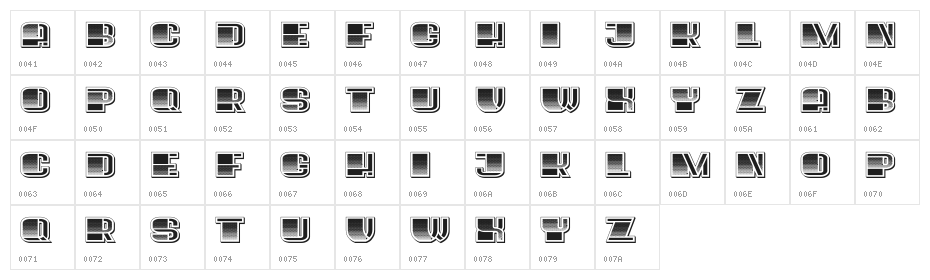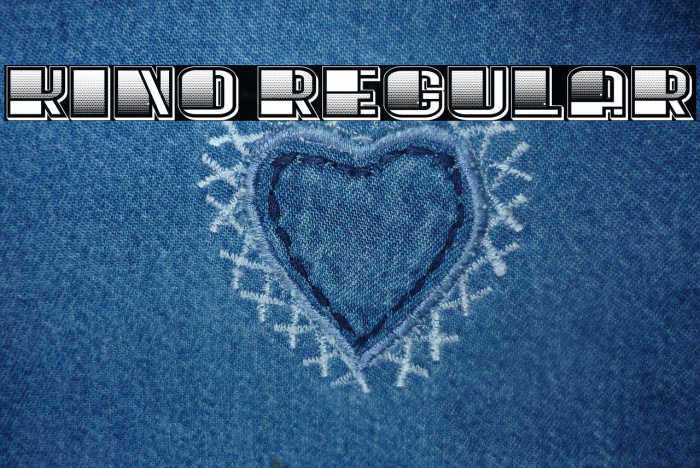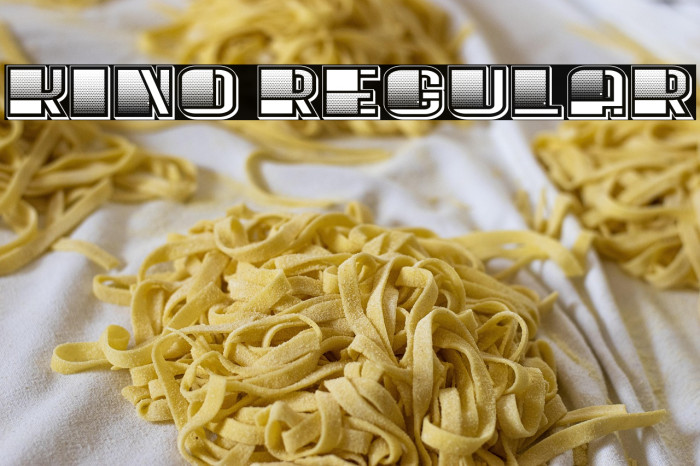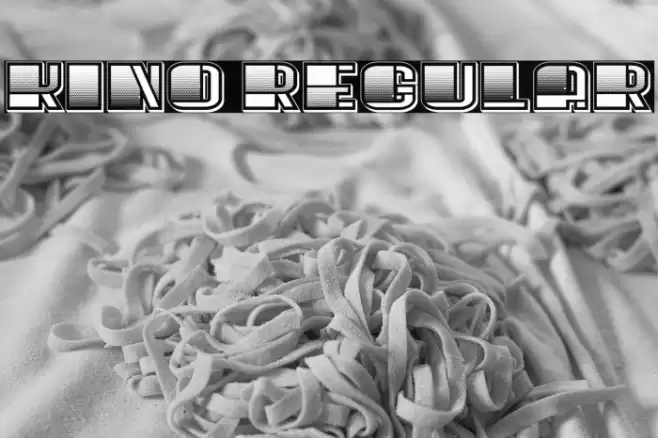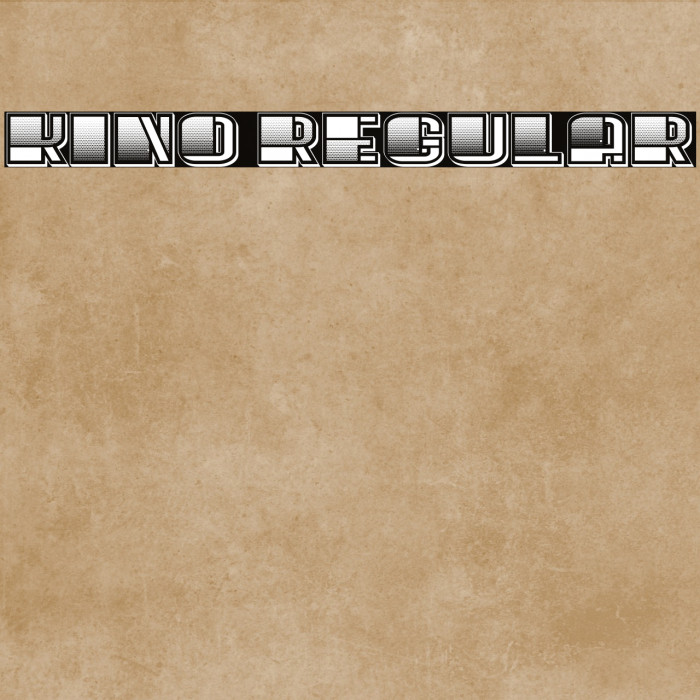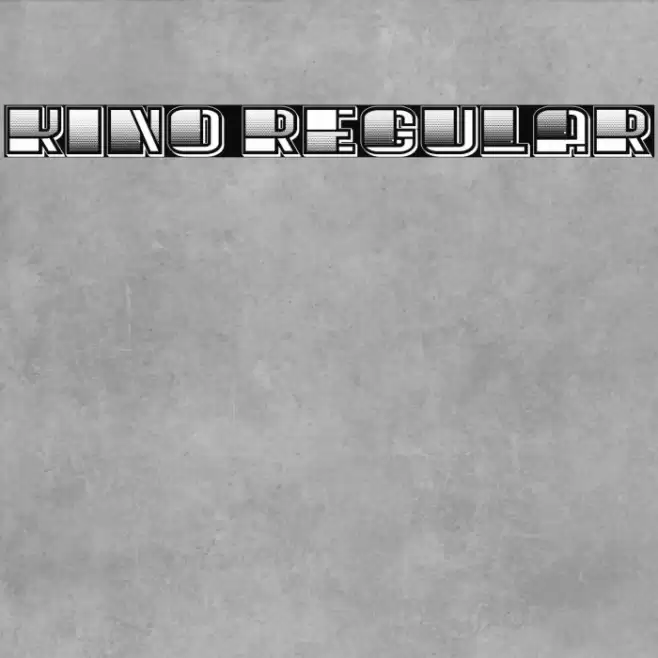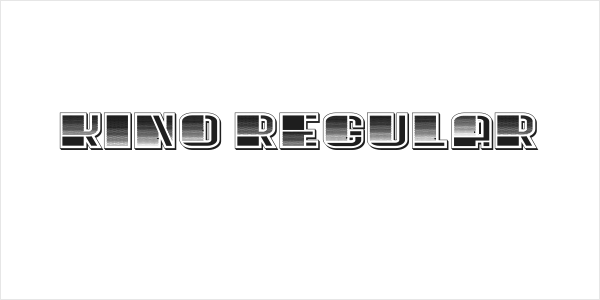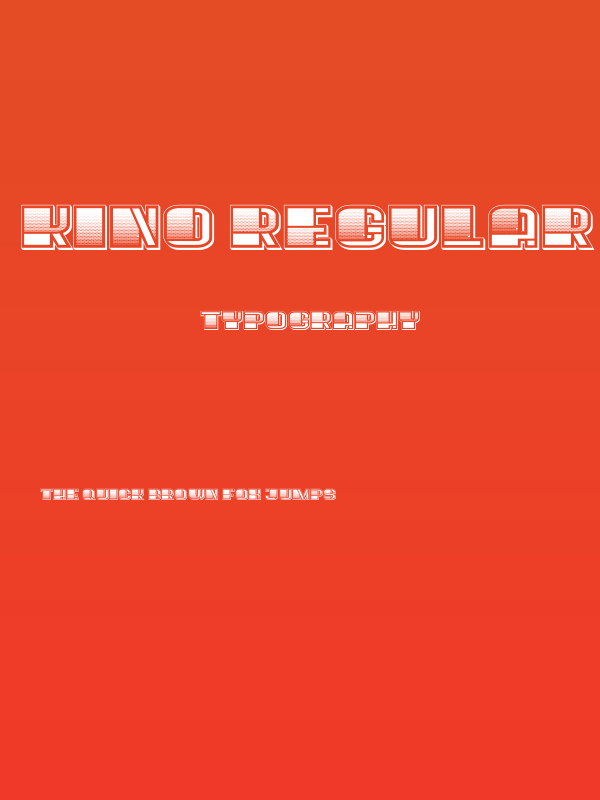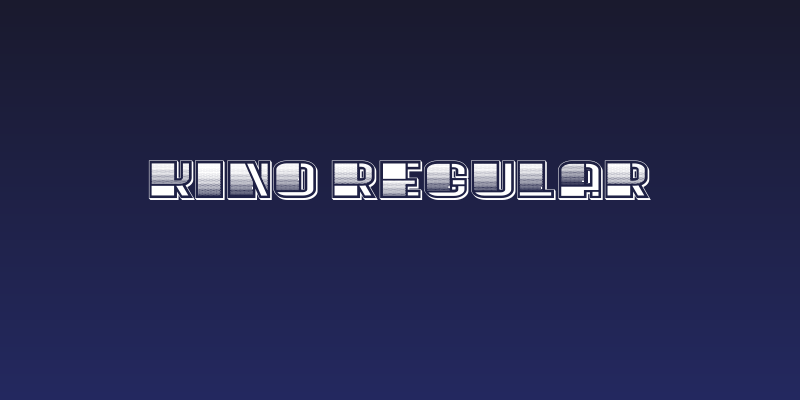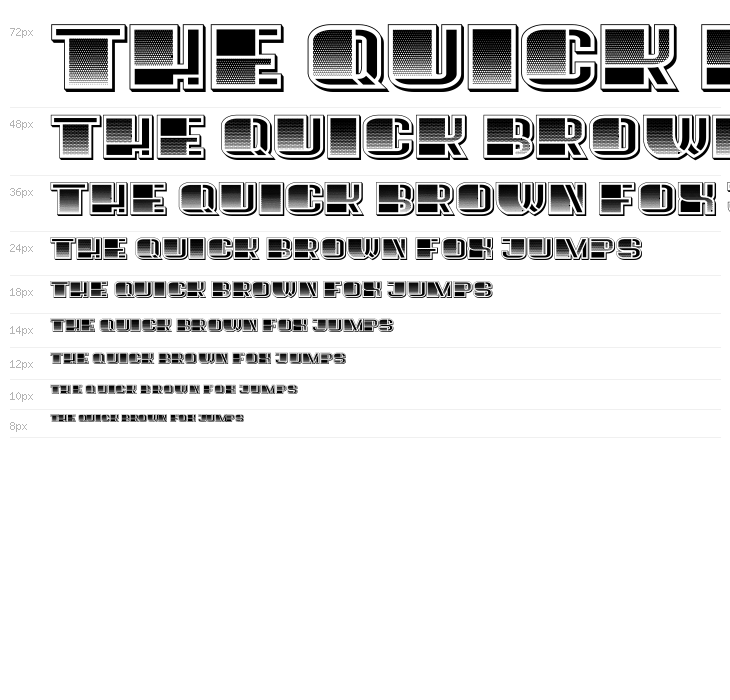
Kino Regular Font
Kino Regular Description
This font features a bold, decorative style with a distinct three-dimensional effect. Each character is designed with a solid black fill and a white outline, creating a striking contrast. The letters are blocky and geometric, with a unique pattern of horizontal lines that add depth and texture. The uppercase letters are uniform in height, contributing to a cohesive and structured appearance. This font's design is reminiscent of vintage signage or retro movie posters, making it ideal for projects that require a bold and eye-catching display.
| Proposed Projects | Ideal for retro-themed posters, vintage signage, branding, and logo design. |